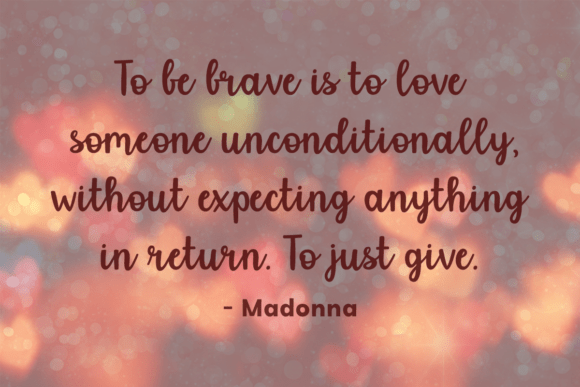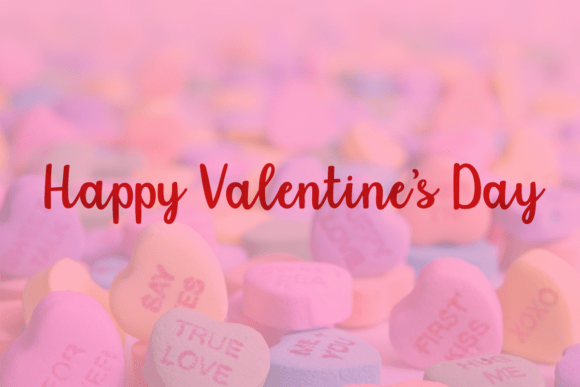
Introduction to Couch Cuddles Font
Do you remember the first time you received a handwritten love letter? The way the pen glided across the paper, creating a unique and intimate message that spoke directly to your heart? That’s the magic of Couch Cuddles Font, a sweet and cozy cursive font that’s perfect for Valentine’s Day and any occasion when you want to express your love and affection.
As a designer, you’re always on the lookout for the perfect design resource to elevate your creative project. And when it comes to adding a warm, handwritten touch to your designs, Couch Cuddles Font is a high-quality choice. With its smooth, flowing letters and playful charm, it’s a must-have for any designer looking to create something adorable and special.
Key Features of Couch Cuddles Font
- Unique, Hand-Drawn Design: The Couch Cuddles Font features a distinctive, hand-drawn aesthetic, perfect for adding a touch of whimsy to your creative project.
- High-Quality Design Resource: This font is a high-quality design resource, suitable for a wide range of applications, from branding and marketing materials to digital products and print designs.
- Perfect for Illustrations and Graphics: The hand-drawn design and transparent background of the Couch Cuddles Font make it an ideal choice for illustrations and graphics, adding a touch of personality to your design.
Honest Review: Couch Cuddles Font
I recently stumbled upon the Couch Cuddles Font, and I must say it’s a lovely addition to any creative project. As a designer, I appreciate high quality design resources that can elevate my work and make it stand out. The Couch Cuddles Font delivers on this promise, offering a range of delightful characters that are sure to bring a smile to anyone’s face.
- ✨ The font’s whimsical design makes it perfect for children’s books, greeting cards, and other projects that require a touch of playfulness.
Overall, I’m impressed with the Couch Cuddles Font. While it may not be perfect, its unique charm and versatility make it a valuable addition to any design resource library. If you’re looking for a fun and creative font for your next project, I’d definitely recommend giving it a try.
Common Use Cases for Couch Cuddles Font
The Couch Cuddles Font is ideal for creating invitations, greeting cards, and social media graphics. It is also suitable for use in presentations, reports, and documents that require a friendly and approachable tone. With its free download and transparent background, this font is a great resource for designers and non-designers alike.